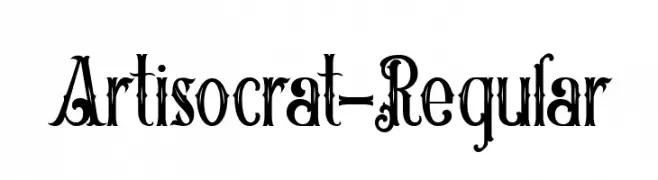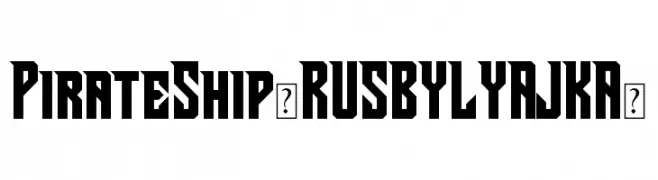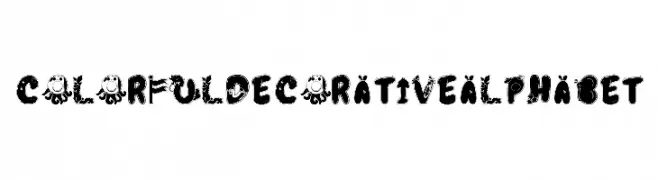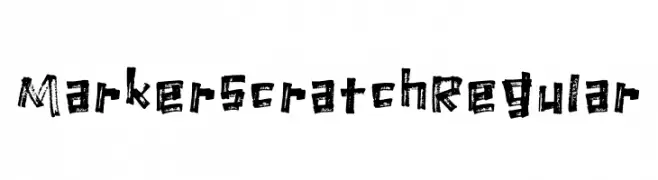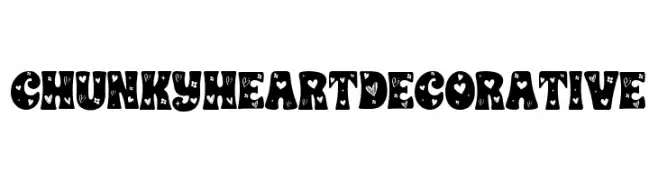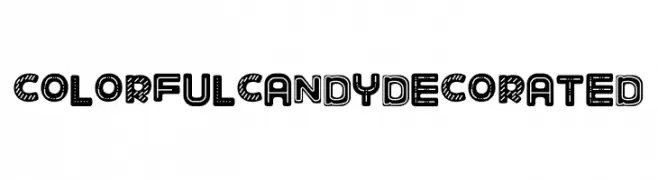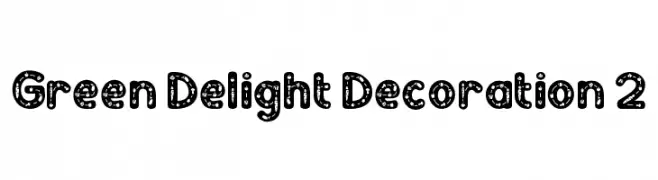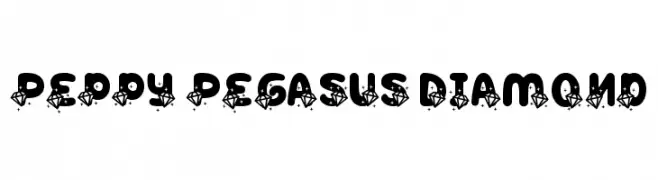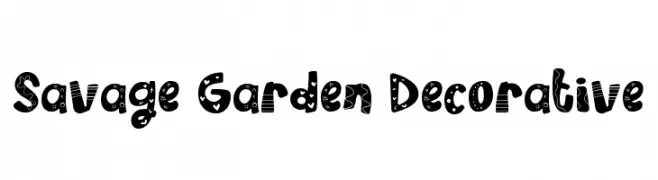
A whimsical, curly font with decorative uppercase and cursive lowercase letters.
An ornate and decorative font with intricate swirls and embellishments.
A bold, angular font with a geometric, pirate-themed style.
A whimsical, decorative font with playful elements in each character.
A decorative, striped font with a festive, playful style.
A bold, hand-drawn font with a distressed, marker-scratch style.
A bold, decorative font with heart and floral embellishments.
A playful, decorative font with candy-like patterns and bold outlines.
A bold, decorative font with leaf-patterned characters.
A bold, decorative font with diamond embellishments for a playful and luxurious look.